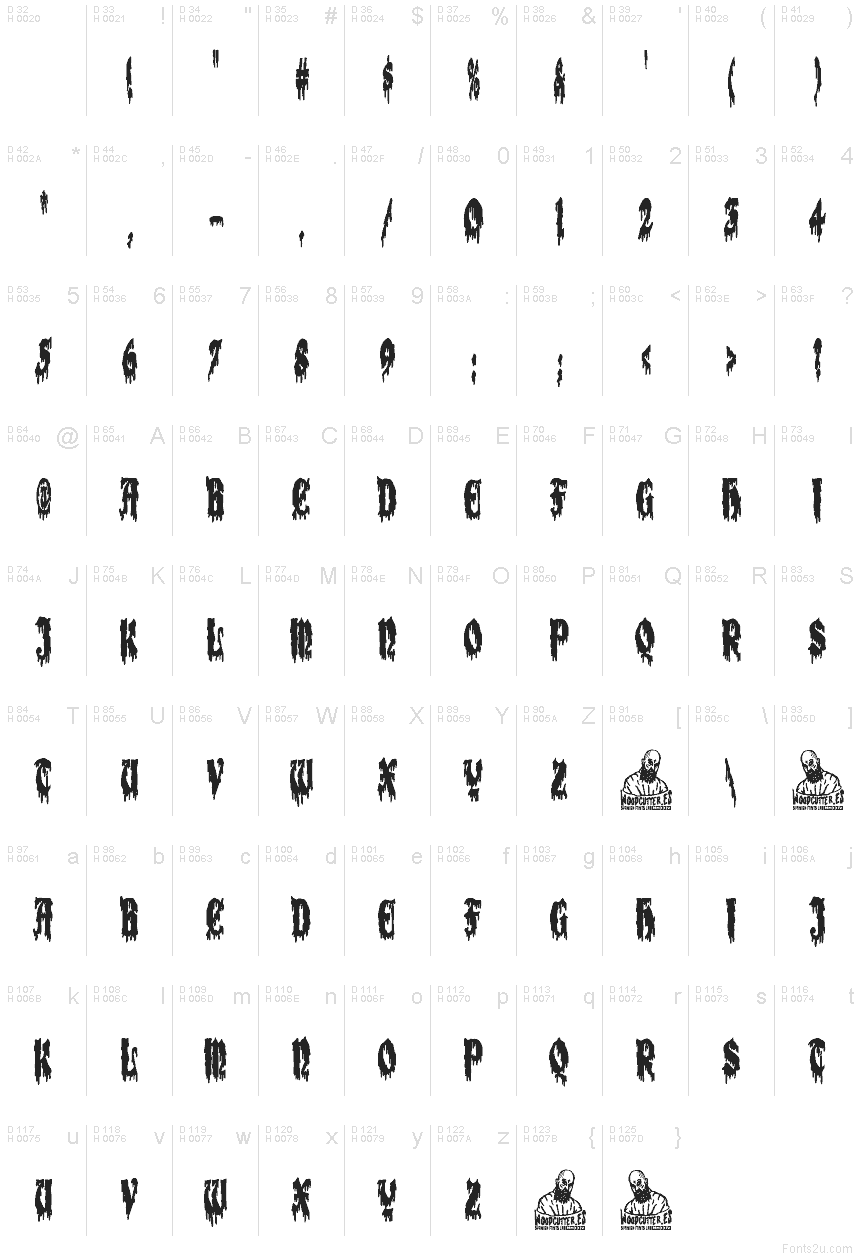
Extreme Bloody Gothic
Extreme Bloody Gothic font by Woodcutter is a free scary, bold display font inspired by horrifying Gothic designs. The typeface features condensed-width characters with an ominous mood created through eerie, dripping elements and sharp aesthetics. The sleek intimidating design makes it perfect for setting an unusual atmosphere or expressing supernatural vibes in designs.
Use the font freely for posters or flyers for bars and clubs or for branding gaming cafes, haunted houses, tattoo parlors, escape rooms, bookstores, arcades. Touchable sectors include all things Halloween from greeting cards to decor pieces and stationery along with skateboard decals and comic book covers.